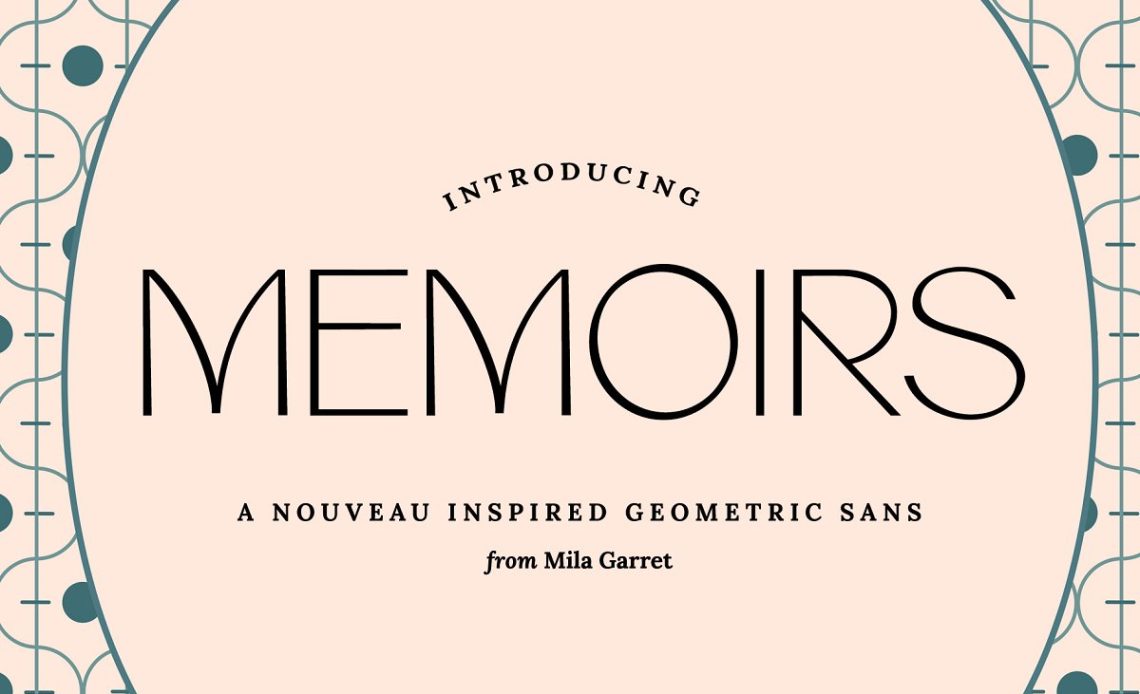
Introducing MEMOIRS Sans Modern Logo Font, the perfect typeface for those in search of a modern, yet vintage feel. Created by Mila Garret, this sans-serif font features clean lines and Art Nouveau-inspired alternates that are sure to add character and uniqueness to any design.
Are you looking for a font that is perfect for branding and websites, or for adding a touch of luxury to your social media graphics and wedding stationery? Look no further than MEMOIRS. This font is ideal for those who want to take their designs to the next level.
What sets MEMOIRS apart from other fonts is its alternate capitals. These letters add a touch of personality and playfulness to any wordmark or display headline. Swap out the capitals to go from serious and minimalist, to vintage and stylish, to quirky and playful.
MEMOIRS also features standard alphabet and punctuation, as well as alternates and ligatures. It is PUA encoded and includes multilingual characters, making it easy to use for designers worldwide.